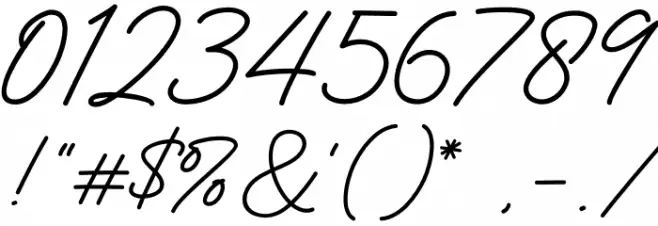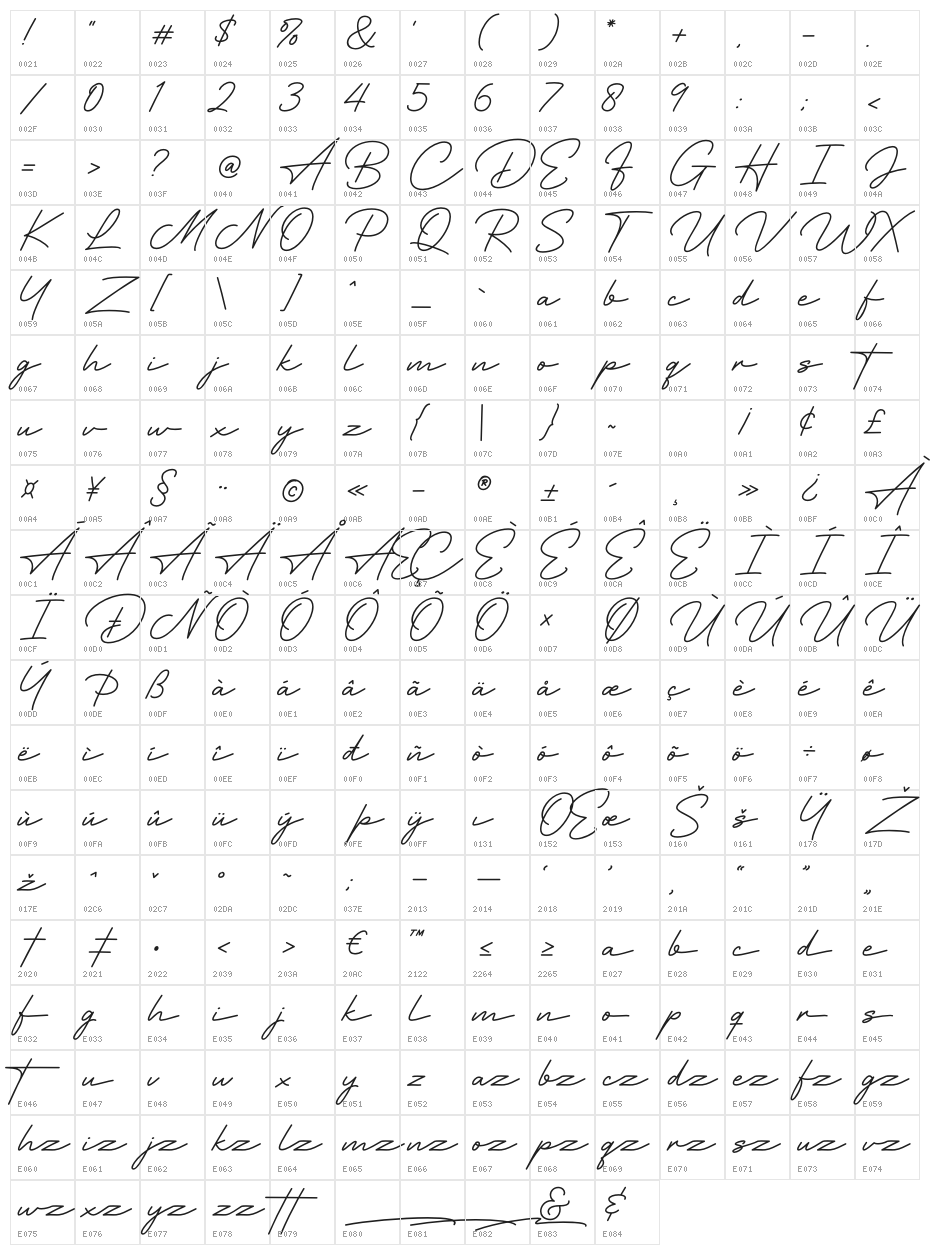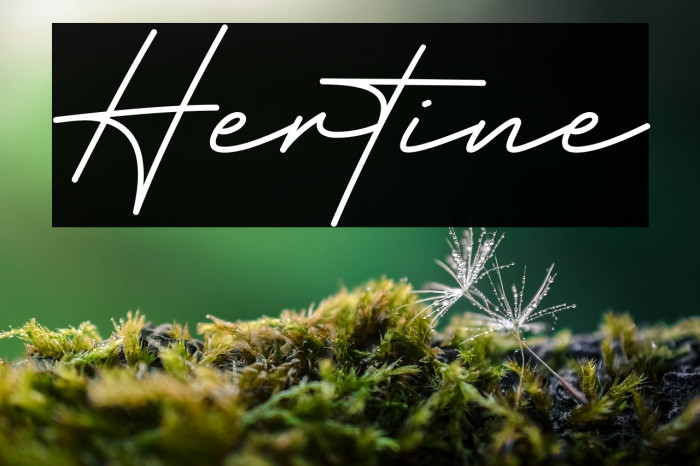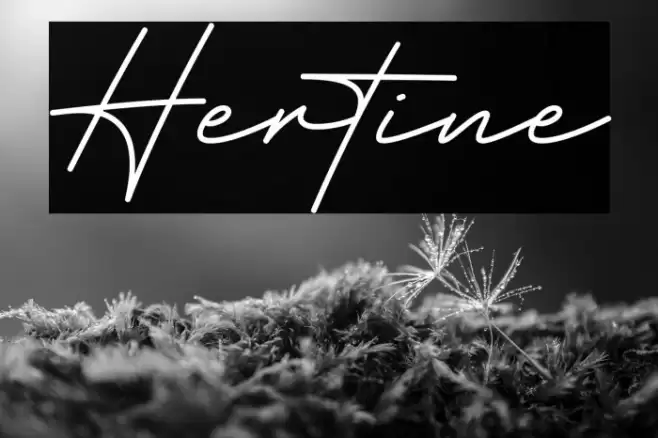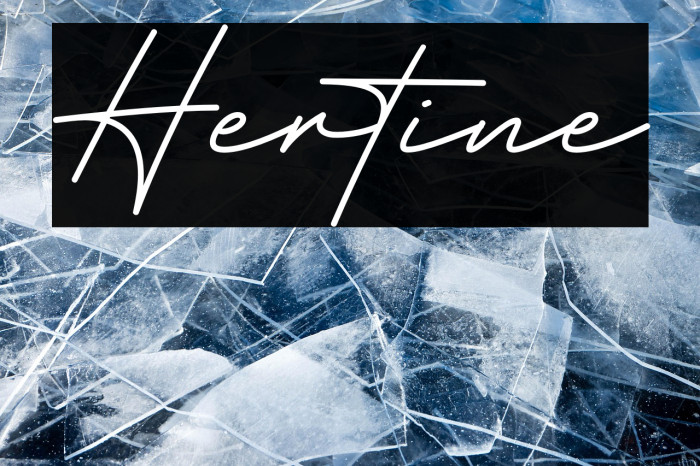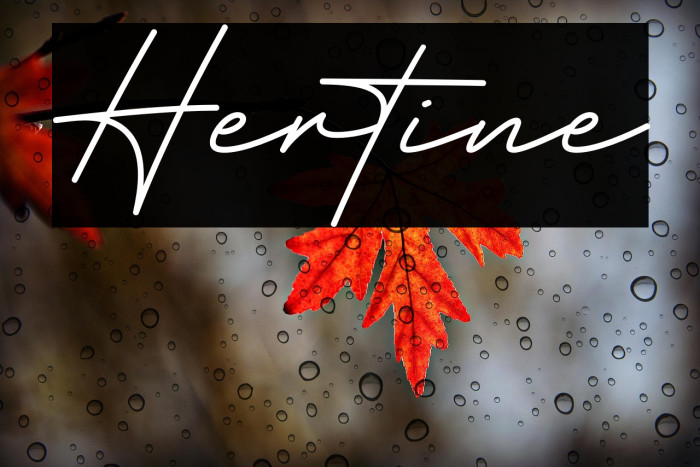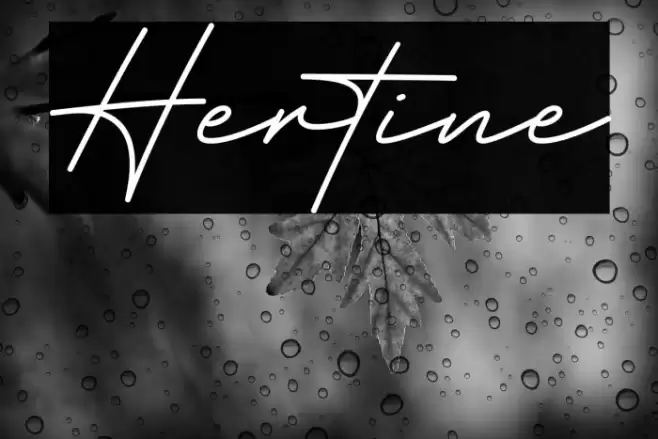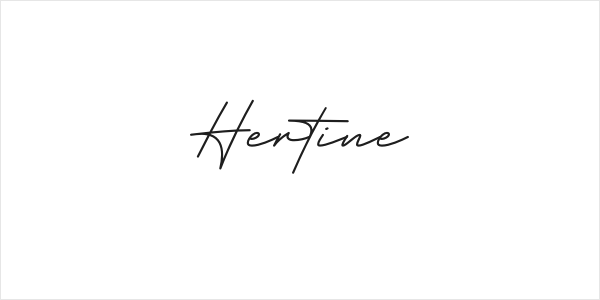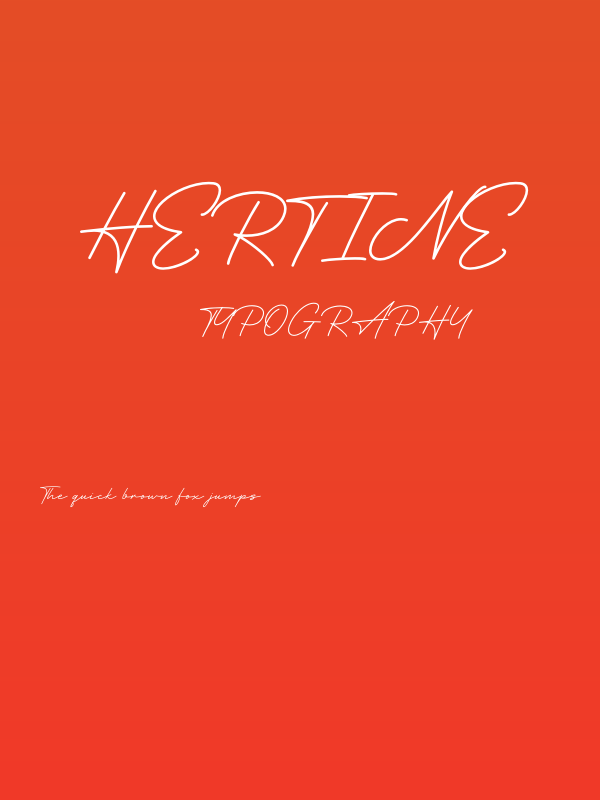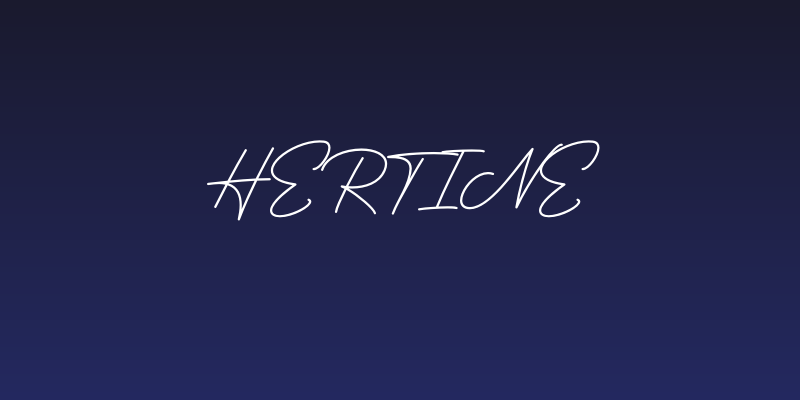
Hertine Font
Hertine Description
This font features a flowing, cursive style that mimics elegant handwriting. The characters are connected, giving it a continuous and smooth appearance. The uppercase letters are slightly larger and more pronounced, while the lowercase letters maintain a consistent flow. The numerals are clear and maintain the same cursive style, ensuring readability. Special characters are included, matching the overall aesthetic. This font exudes a sense of sophistication and personal touch, making it ideal for projects that require a handwritten feel.
| Use Case | Logos, Invitations, Personal Correspondence |
| Proposed Projects | Ideal for wedding invitations, personal letters, branding, and greeting cards. |